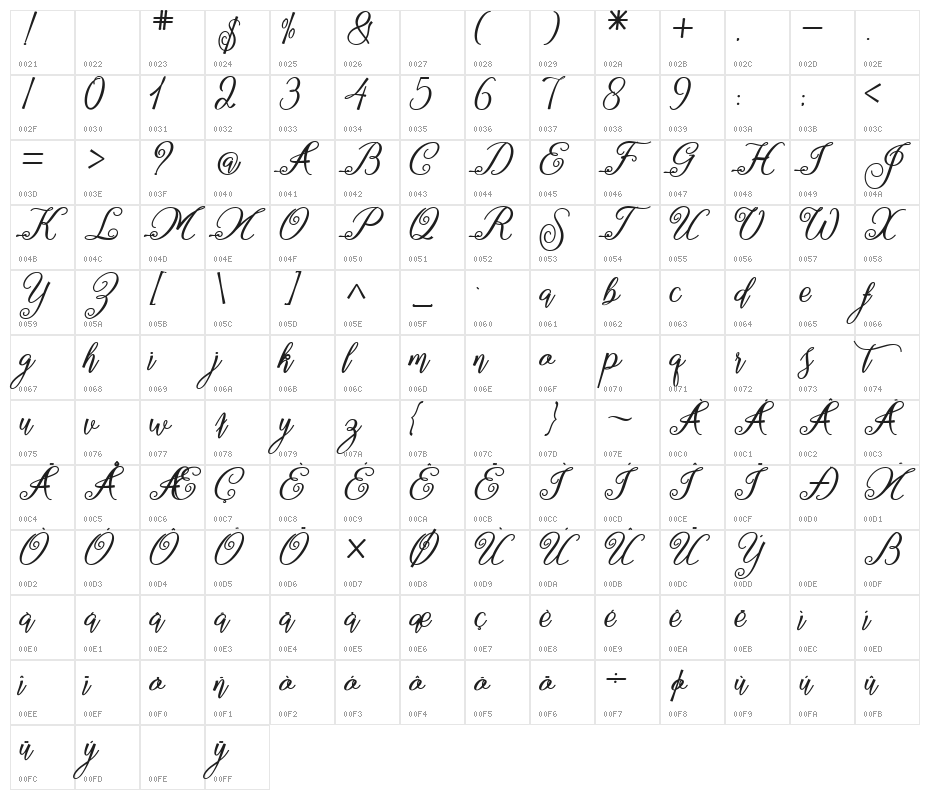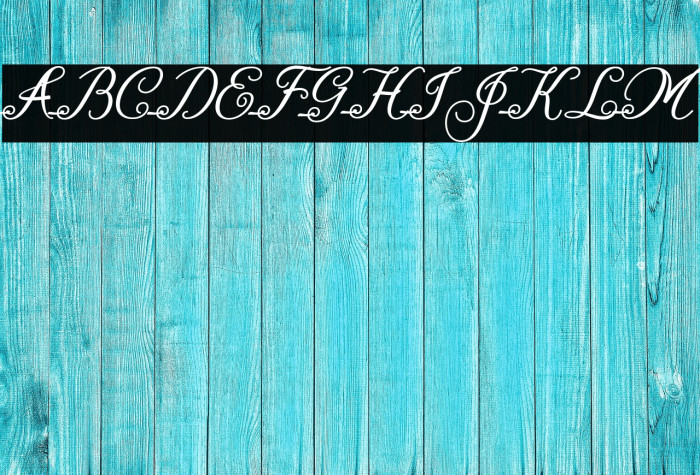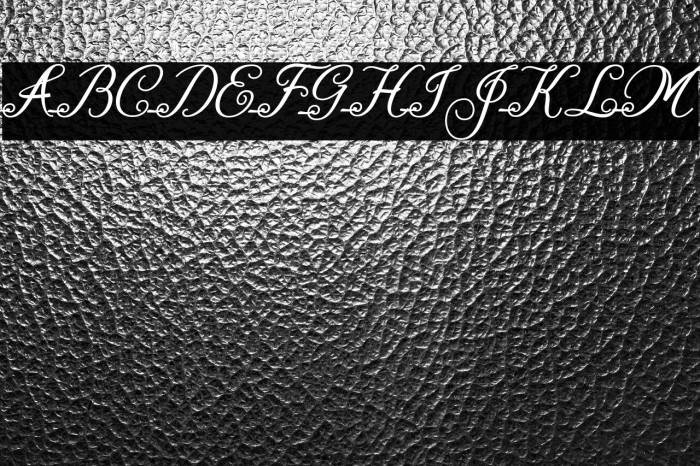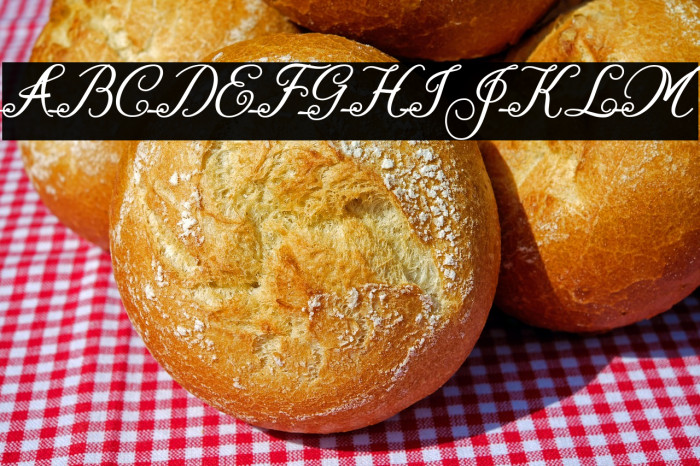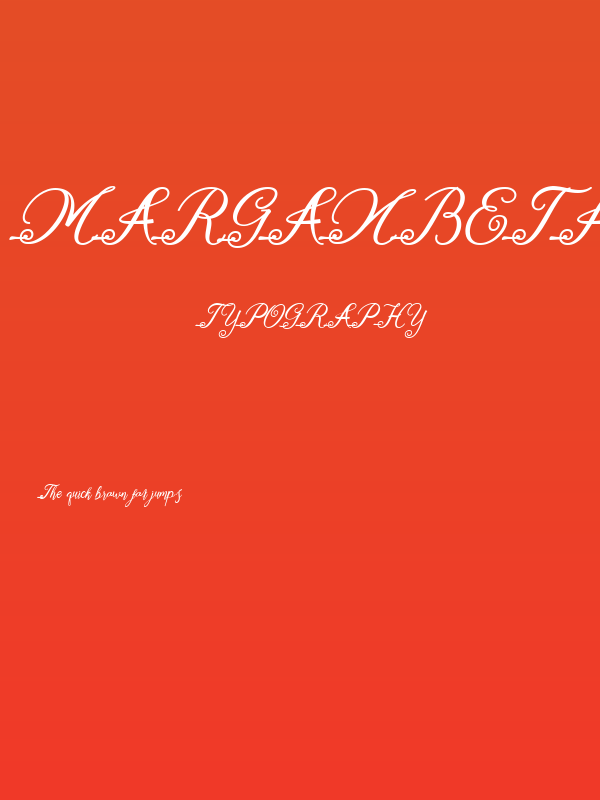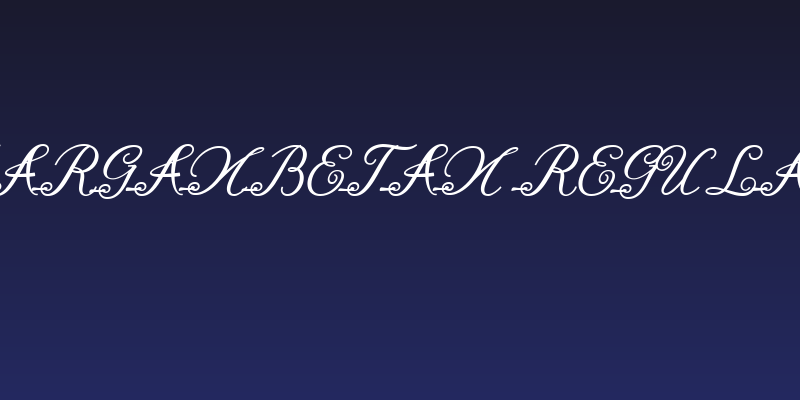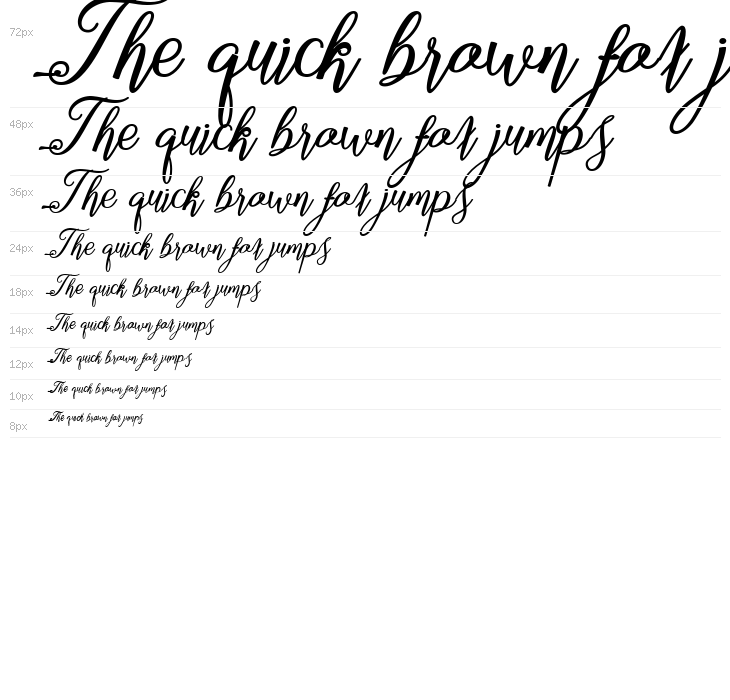
marganbetan Regular Font
marganbetan Regular Description
This font features an elegant and flowing script style, characterized by its intricate swirls and loops. The uppercase letters are adorned with decorative flourishes, adding a touch of sophistication and charm. The lowercase letters maintain a smooth and connected appearance, enhancing the font's cursive nature. Numbers and special characters are designed with a consistent style, ensuring a cohesive look across all elements. The overall aesthetic is both graceful and stylish, making it suitable for projects that require a touch of elegance and creativity.
| Proposed Projects | Ideal for wedding invitations, greeting cards, branding, and elegant logos. |